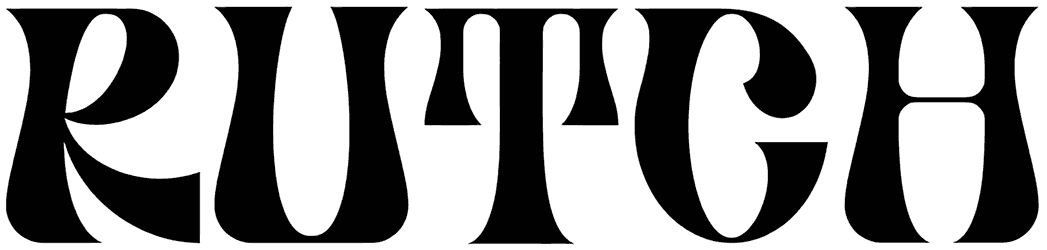
Rutch Font
Are you looking for a special letterform for a modern and stylish design? This groovy font with its playful and salient vibe would be a cool option for your novel ideas. Rutch font with almost A-Z characters will be a nice adornment for the text of your upcoming designs, like postcards, branding, magazines, and along with others.